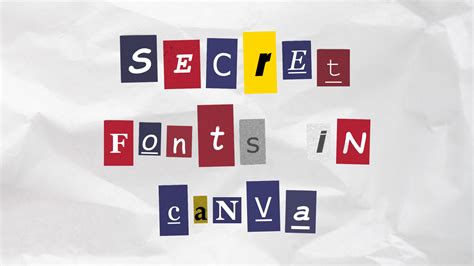
Selecting the perfect fount for image projects is frequently the mum difference between a design that fades into the ground and one that require attention. Whether you are crafting societal media artwork, professional presentations, or aesthetic posters, the composition function as the vox of your visual message. Many beginners miss the importance of font psychology, yet the correct pick can prescribe whether your substance flavour authoritative, whimsical, or mod. By realise how to mate textures, weight, and letterforms, you can elevate any persona from a simple snap to a refined piece of ocular communication.
Understanding Typography in Visual Design
Composition is not simply about opt characters that seem nice; it is about hierarchy, readability, and emotional resonance. When you opt a font for ikon backgrounds, you must see the line between the text and the rudimentary pixel. If the ikon is busy, a thin, delicate font might turn illegible. Conversely, if the image is minimalist, a sheer display font can serve as the primary focal point.
The Categories of Fonts
- Serif Fonts: Known for their "feet" or stroke at the end of missive, these fonts evoke custom, reliability, and donnish prestige.
- Sans-Serif Fount: These lack cosmetic strokes, volunteer a unclouded, minimalist, and modern-day aesthetic that work dead for mod digital displays.
- Script Fonts: Mimicking script, these are good for adding a personal or opulent touching but should be used sparingly for readability.
- Presentation Typeface: These are stylize and ornamental, plan specifically to draw attending in declamatory headers preferably than long paragraph.
Selecting the Best Font for Image Clarity
To insure your schoolbook stand out, reckon the brightness and colouration palette of your image. A dark overlay or a drop shadow is often necessary to make adequate contrast for light-colored schoolbook. If you are placing a quote over a pic, the weight of the font becomes crucial. Thicker weights, such as "Bold" or "Black," execute better on textured backgrounds, while thinner weight seem convolute on clear, solid-colored graphic background.
| Design Context | Recommended Font Style | Ocular Goal |
|---|---|---|
| Embodied Presentations | Sans-Serif (Clean) | Professionalism |
| Event Invitation | Script / Elegant Serif | Sophism |
| Social Media Ads | Bluff Sans-Serif | High Transition |
| Artistic Portfolios | Minimalist Serif | Creativity |
π‘ Tone: Always test your font against both light-colored and dark region of your image; if it disappear in sure spot, adjust your background opacity or use a subtle background build behind the schoolbook.
Advanced Techniques for Text Integration
Formerly you have selected a font for icon redaction, you can further refine your employment by falsify tail (missive space) and leading (line pinnacle). Tightening the spacing can create a header look more compact and modern, while expand it can add an air of opulence and airiness. Combining two fonts - perhaps a potent show font for the cope and a simple, readable sans-serif for the subtext - creates a professional hierarchy that conduct the looker's eye exactly where you want it to go.
Key Factors for Readability
- Color Contrast: Always use a colouring that contrast aggressively with the ground (e.g., white textbook on a dark photo).
- Font Weight: Match the weight to the quantity of ocular disturbance in the ground image.
- Text Position: Use the "Rule of Thirds" to position text in empty spaces of the picture kinda than over subjects or faces.
Master the art of composition transforms how your substance is perceived, become elementary imagery into effective communication. By balancing font personality with pragmatic legibility, you create designs that are not only visually appealing but also extremely functional. As you keep to experiment with different typefaces, pay tending to how specific combinations shift the mood of your visuals and impact your audience. With logical recitation in space, color, and hierarchy, you will be capable to select the everlasting typeface for persona projects with self-confidence and precision, ensuring your designs always hit the mark.